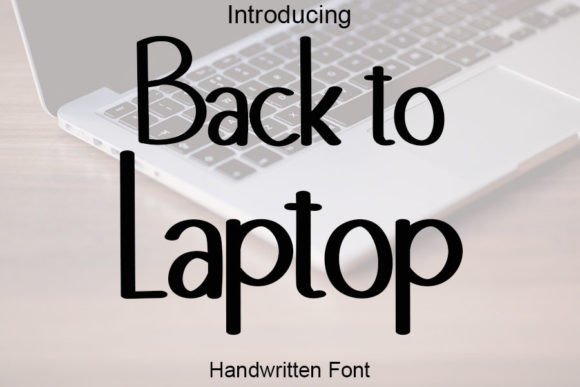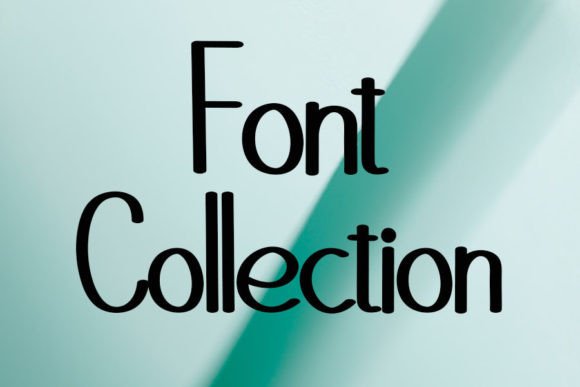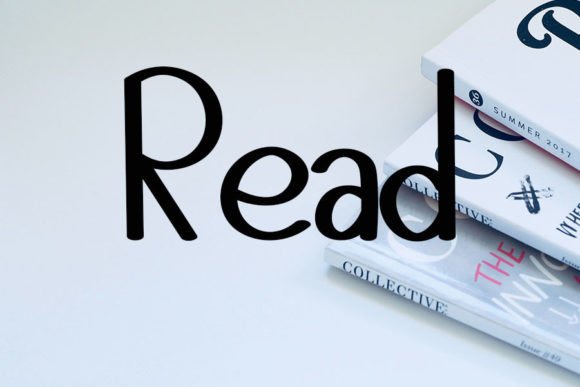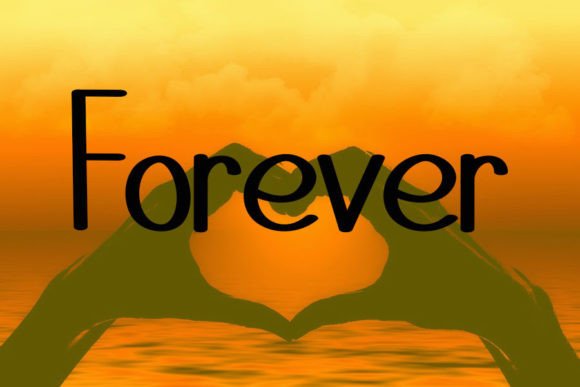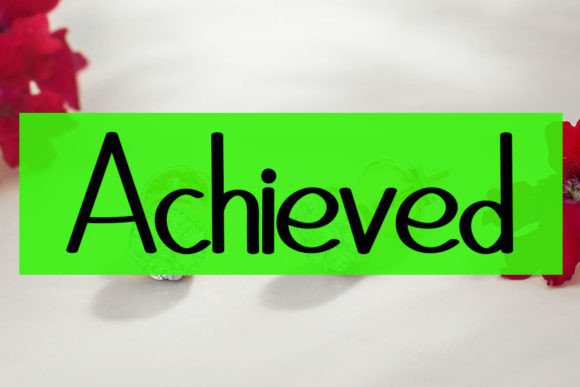
Back to Laptop Font
“Back to Laptop” is a neat and beautiful handwritten font that exudes an elegant touch, making it a perfect choice for your favorite design projects. This font is characterized by its clean and timeless style, and it has the potential to elevate the aesthetic of your designs to a whole new level.
The charm of “Back to Laptop” lies in its ability to convey a sense of neatness and elegance through its handwritten characters. The font’s letters possess a refined and sophisticated quality that adds character and grace to your designs. “Back to Laptop” is a font that effortlessly enhances the visual appeal of your projects, making them stand out with a sense of elegance and distinction.
This font is an excellent choice for a wide range of applications. Whether you’re designing elegant invitations, crafting branding materials that exude sophistication, creating clean and timeless typography for quotes, or embarking on any design endeavor that requires a neat and beautiful handwritten font, “Back to Laptop” is a versatile and reliable choice.
Incorporating “Back to Laptop” into your design projects will likely result in outcomes that are not only neat and beautiful but also full of elegance and timeless style. Its clean and refined form makes it an excellent choice for creating designs that resonate with sophistication and distinction. Embrace the distinct and timeless elegance of “Back to Laptop” in your next project, and watch as it enhances the visual impact of your typography and overall design, making them truly spectacular and memorable.